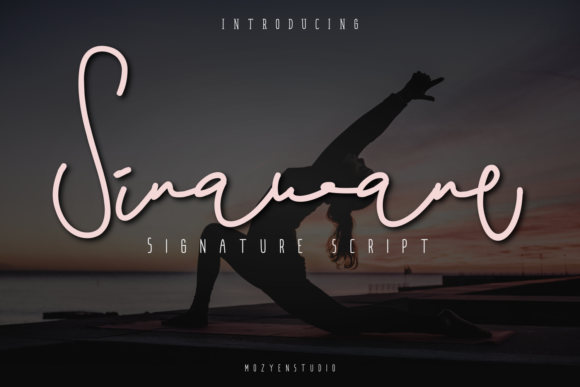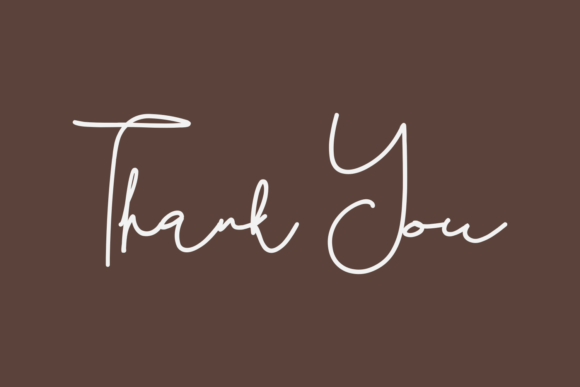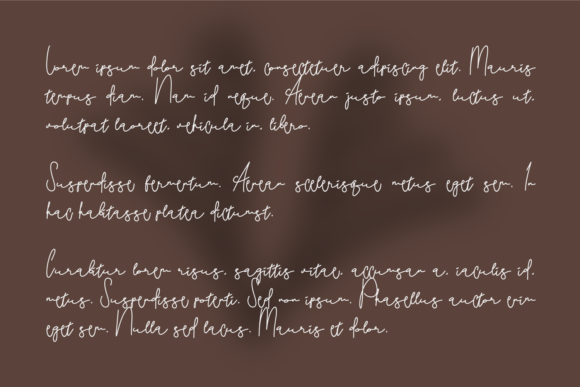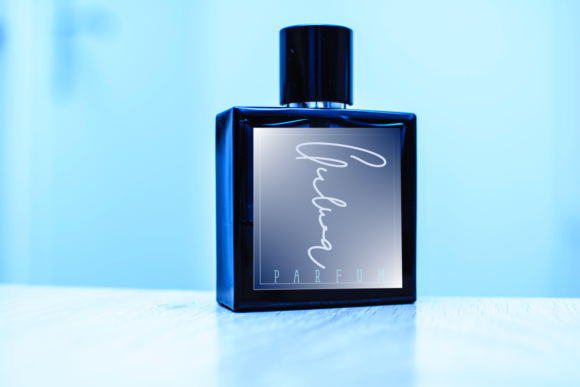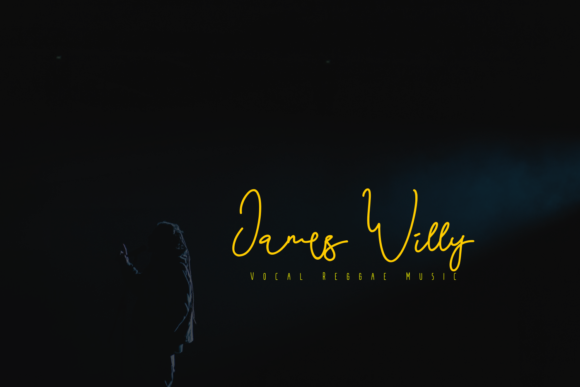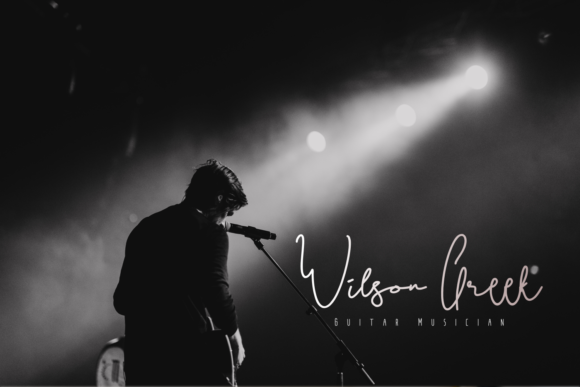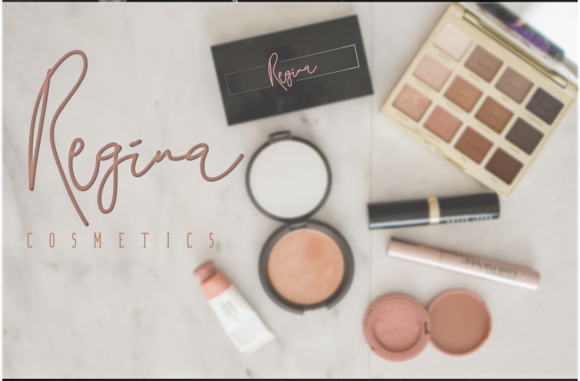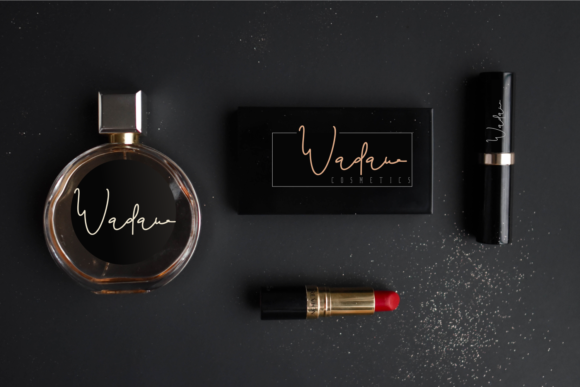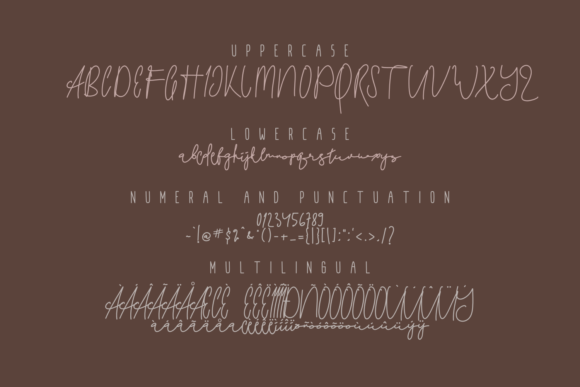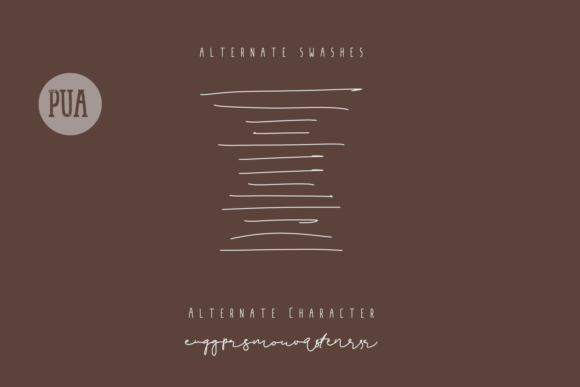
Sinawane Font
About Sinawane Font
Sinawane feels equally charming and elegant. It will elevate a wide range of design projects to the highest level, be it branding, headings, wedding designs, invitations, signatures, logos, labels, and much more!